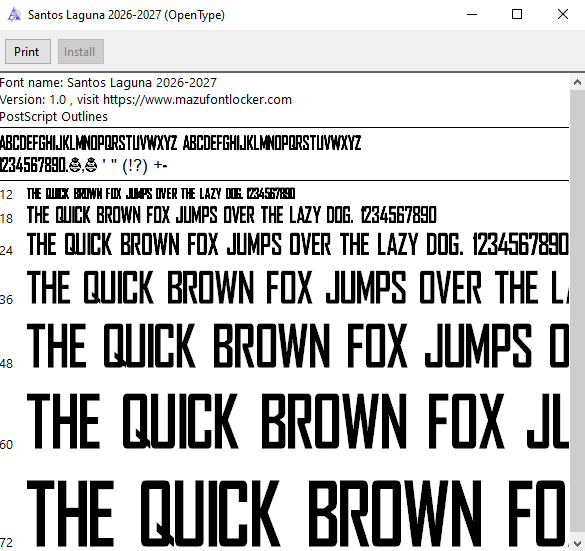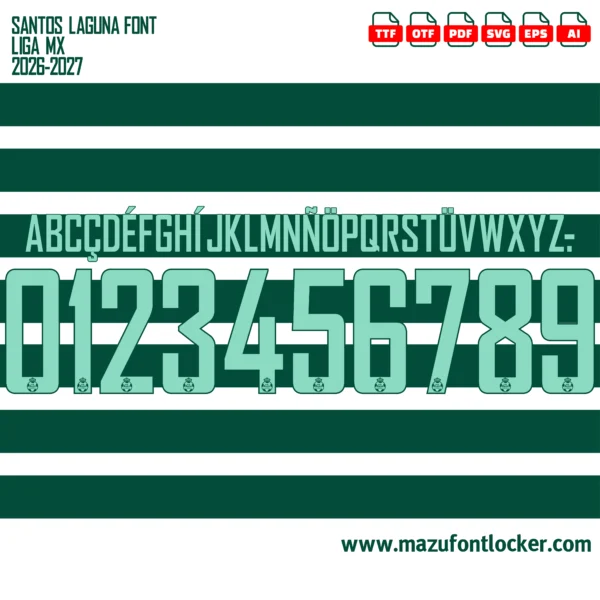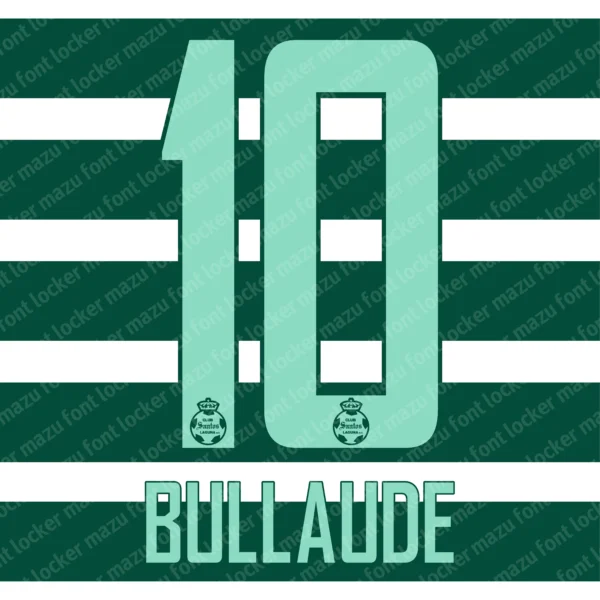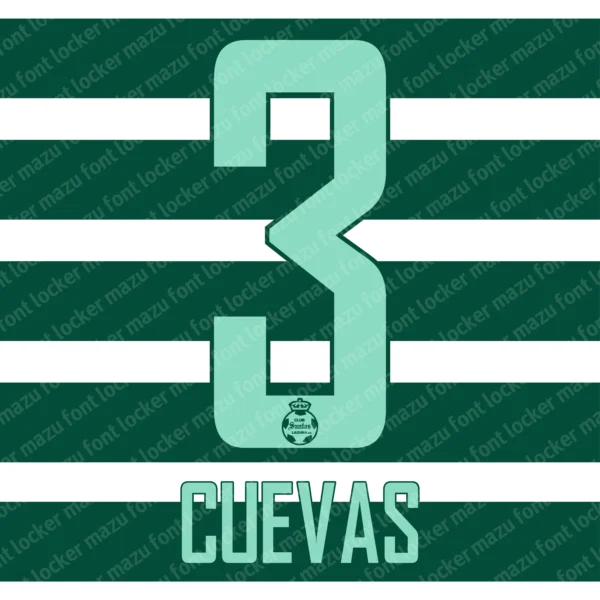
Santos Laguna 2026-2027 Font Vector – Epic Guerreros Masterpiece
This font captures the commanding, thunderous, steel-sharp, and precision-engineered lettering that perfectly embodies Santos Laguna’s iconic club identity, proud northern Mexican heritage, never-back-down mentality, and raw football power — delivering unmatched authenticity, premium quality, explosive energy, and elite Liga MX & international dominance for professional jersey mockups, dynamic football graphics, premium sports branding, passionate fan creations, and high-end design projects.
Santos Laguna 2026-2027 Font Vector – Iconic Green & White Typeface
The Santos Laguna 2026-2027 Font Vector is a premium typeface that accurately recreates the official match lettering worn by Santos Laguna during the 2026-2027 season. This high-quality vector font kit captures the bold, clean, and instantly recognizable typography that perfectly complements the club’s iconic green and white identity.
Designed for professional designers, football enthusiasts, and passionate Santos Laguna supporters, the Santos Laguna 2026-2027 Font Vector delivers exceptional authenticity for creating realistic jersey mockups, football merchandise, social media graphics, match posters, and custom fan artwork. Every character has been carefully recreated to match the powerful and precise visual style of one of Mexico’s most passionate football clubs.
Why Choose Santos Laguna 2026-2027 Font Vector
This font stands out thanks to its precise vector construction and authentic club styling. Every letter and numeral has been meticulously recreated to match the official shirt lettering used throughout the 2026-2027 Liga MX and cup campaigns. Whether you’re producing professional kit templates or creating eye-catching football content, the Santos Laguna 2026-2027 Font Vector delivers a genuine match-ready appearance.
The lettering featured in the Santos Laguna 2026-2027 Font Vector combines clean geometric lines with powerful modern proportions. The result is a premium and highly readable typeface that reflects Santos Laguna’s warrior spirit, lagunero intensity, and passionate fanbase in Mexican football.
• Complete uppercase A–Z alphabet and numbers 0–9 in authentic Santos Laguna 2026-2027 style
• Special Santos Laguna badge glyph – Press the “:” (Colon) key to insert the club badge
The Santos Laguna 2026-2027 Font Vector is an independently designed typeface package inspired by the official shirt lettering for the 2026-2027 season. It has been carefully recreated for football enthusiasts, graphic designers, collectors, and creators producing custom jersey concepts, football artwork, and fan-made projects.